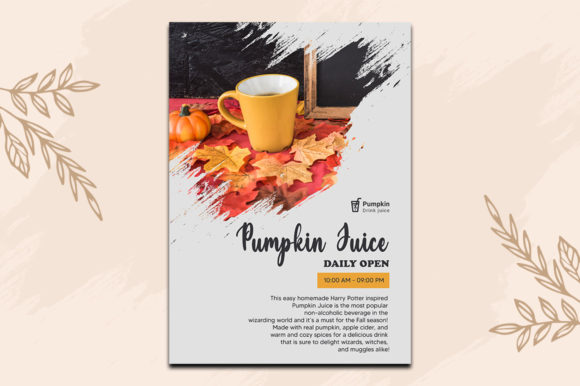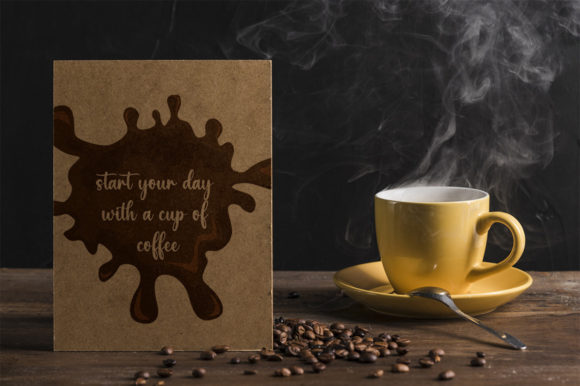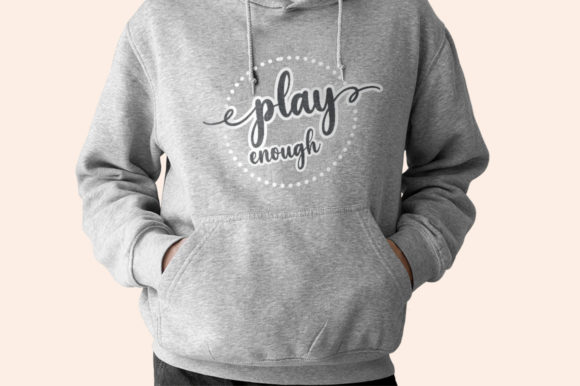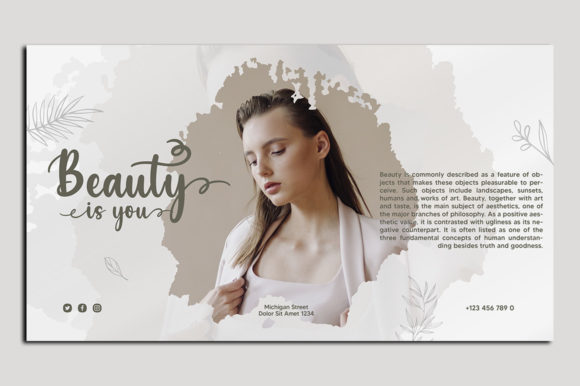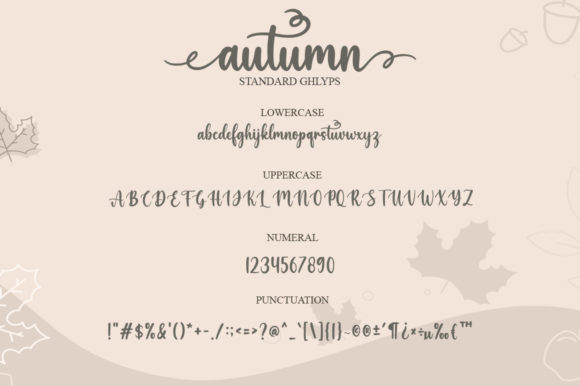
Getting Cozy with Autumn’s Charm
There’s something magical about curling up with a warm cup of coffee or tea on a crisp autumn morning, feeling the soft sunlight peek through the leaves. As a designer, I’m sure you’ve experienced that same spark of inspiration – the moment when the perfect font comes along and brings your creative vision to life.
That’s exactly what Autumn Font does – it’s a delightful script font that adds a playful touch to any design. With its charming characters and dancing baseline, Autumn Font is the perfect companion for your next creative project. Whether you’re working on a wedding invitation, a birthday card, or a social media post, this font is sure to bring a touch of autumn’s magic to your design.
As a valuable addition to your design toolkit, Autumn Font offers PUA encoding, making it easy to access all of its glyphs and swashes. This means you can get creative with your design without worrying about font limitations – a true designer’s dream come true!
Autumn Font Key Features
- Resolution: Autumn Font is designed to be crisp and clear at resolutions of 72-300 DPI, making it ideal for digital applications.
- Unique Characteristics: The font features a warm and inviting aesthetic, with subtle gradient effects and intricate details that evoke the feeling of autumn leaves.
- Language Support: Autumn Font includes support for over 200 languages, making it a versatile choice for global applications.
Designer Review: Autumn Font
Overall, I’m quite impressed with the Autumn Font, especially its aesthetic appeal. The design effectively captures the cozy and warm atmosphere of the autumn season. ✨ The font’s organic, hand-drawn feel gives it a unique and charming character that’s perfect for autumn-themed projects or designs.
Some of the things that work well for the Autumn Font include:
- ✨ Unique, organic feel that sets it apart from other fonts
- ✨ Effective use of warm, earthy tones to evoke a cozy atmosphere
- ✨ Versatile design that can be used for a variety of autumn-themed projects
- ⚠️ Limited character set, which may not be ideal for projects that require a wide range of characters
- ⚠️ May not be as legible at smaller font sizes, which could affect readability
Overall, I’d give the Autumn Font 4 out of 5 stars. While it has some limitations, its unique design and aesthetic appeal make it a great choice for autumn-themed projects. With some adjustments to its character set and legibility, I think this font could be even more effective.
Getting the Most Out of Autumn Font
For optimal results, use Autumn Font in conjunction with warm, earthy colors and natural textures.
Experiment with different font sizes and styles to create visual interest and hierarchy in your design.
Autumn Font is ideal for:
- Seasonal marketing campaigns and promotions.
- Outdoor and nature-themed designs.
- Wedding and event invitations.